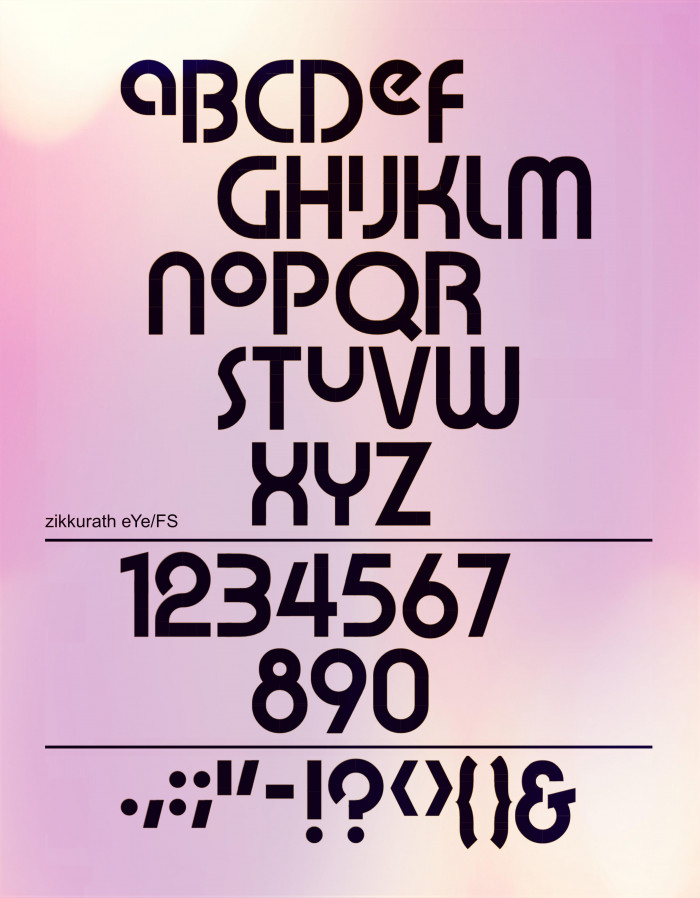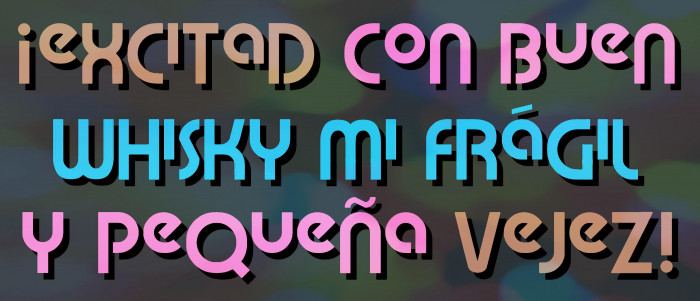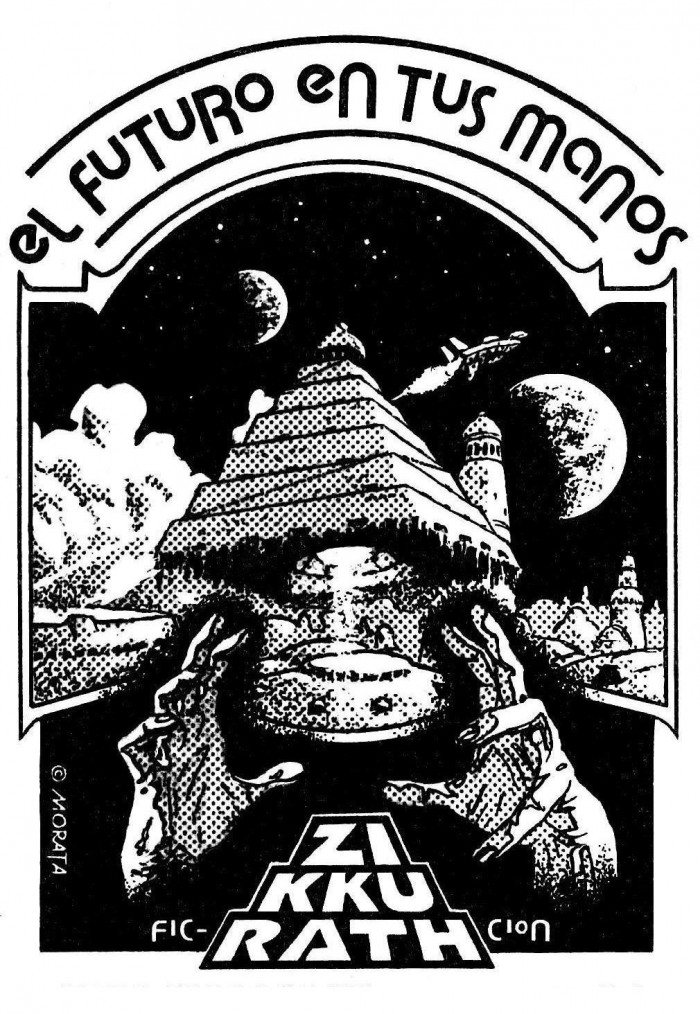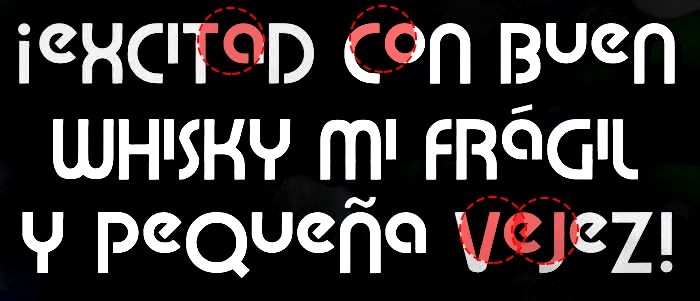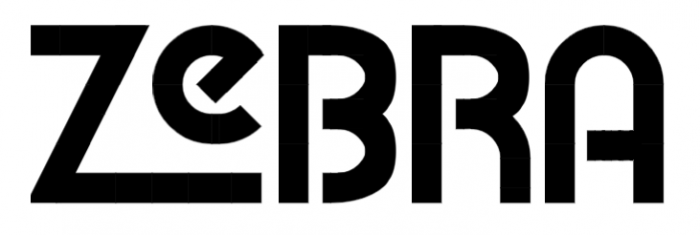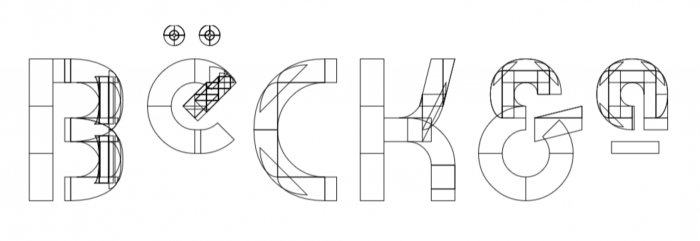
Unicase font with the best of the 80's flavour and the great Expressa typeface in mind. A new try melting frontiers between upper and lowercase, all in a row. Hope you've fun with it!
Very funky stuff.. clever use of x-height allignement for some characters. And wonderful 4, 6 and 8. 🥰
The Bahamas vibe. I like this one, weird and unique at the same time.
@Sed4tives: Thanks a lot, pal! Only was a fool idea rescued from one of my very old designs (I made it using Letraset adhesive letters for the texts, btw. Zikkurath was a spanish SF magazine)...
Wait, its name was actually Bauhamas!? Anyway, it's clever from the use of the x-height AND to just apply the lowercase version to the vowel.
How about more kerning?
I wonder if full height vowel letters could be added as well (plus glyphs to extend the line on the C, L, Z) (I tried building the full height A in GIMP to the best of my ability)
@elmoyenique - Reminiscent of SONY's WALKMAN logo font from the 1980s.  Great job!  :^)
One major difference is the dotted A in WALKMAN
Where'd you learn the 3x3 macaroni trick?
@Sed4: Thanks. Trying the kern.
@BWM: Good idea. I'm thinking on it.
@frongile: I'm not really sure, I think it could have been when I was designing zophyka, which had a lot of curves of various sizes. It doesn't matter.
Some glyphs detailed.
@BWM: Thanks. It was a good idea, but it's difficult to extend it to this font (at least for me, with problems with the different length of the glyph line under e or i, etc...). Maybe in another similar way, working with it a little more... I'm thinking about it.
10/10 bauhaus fonts still look good